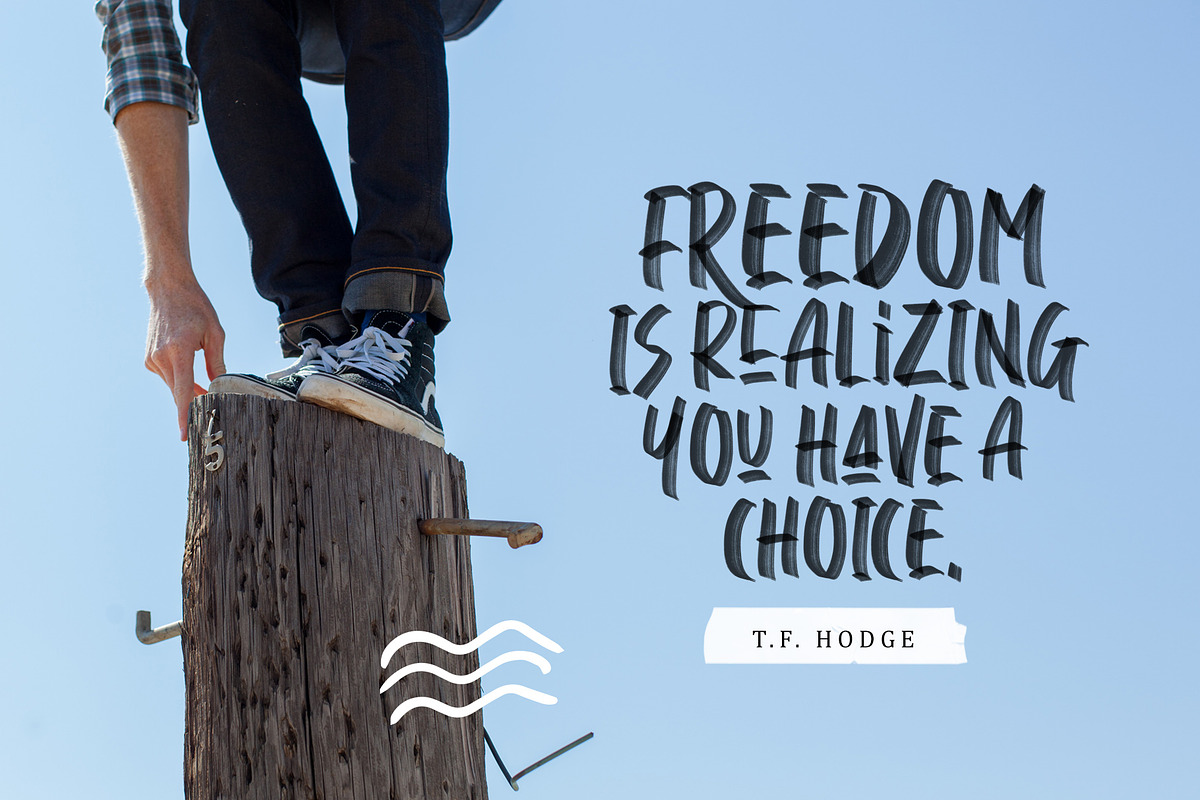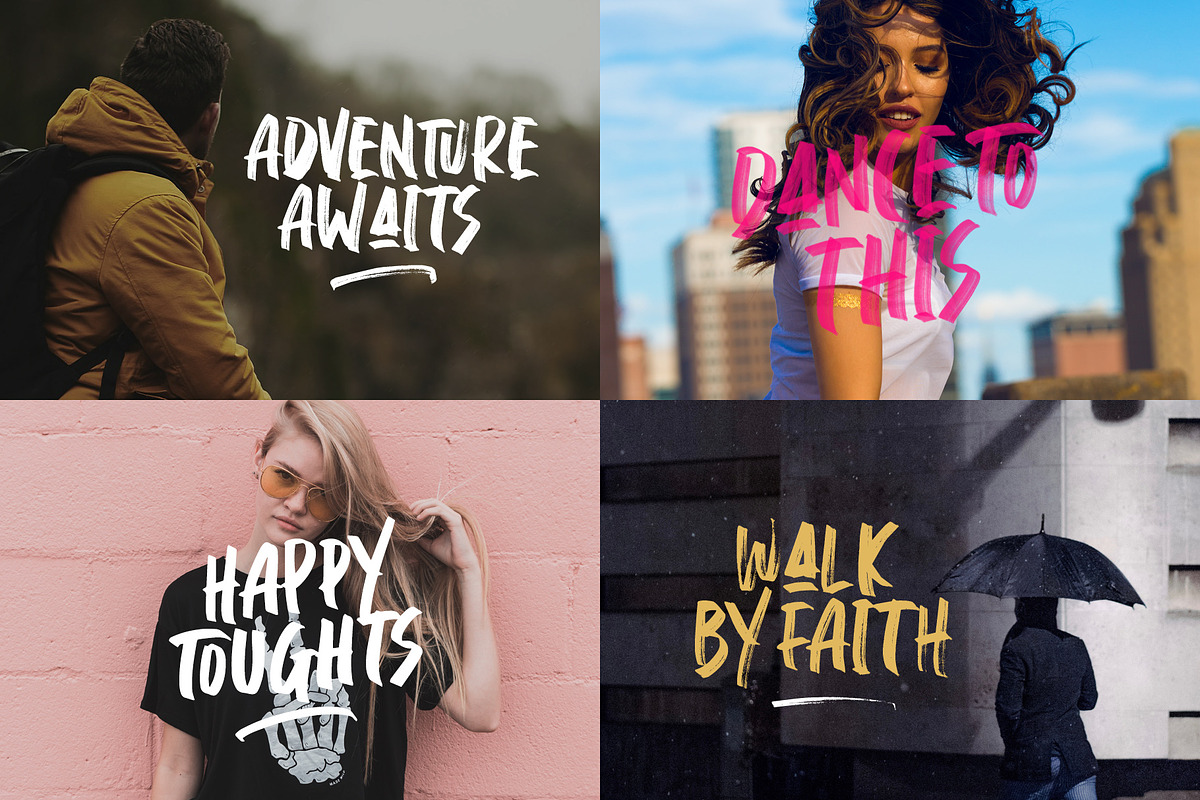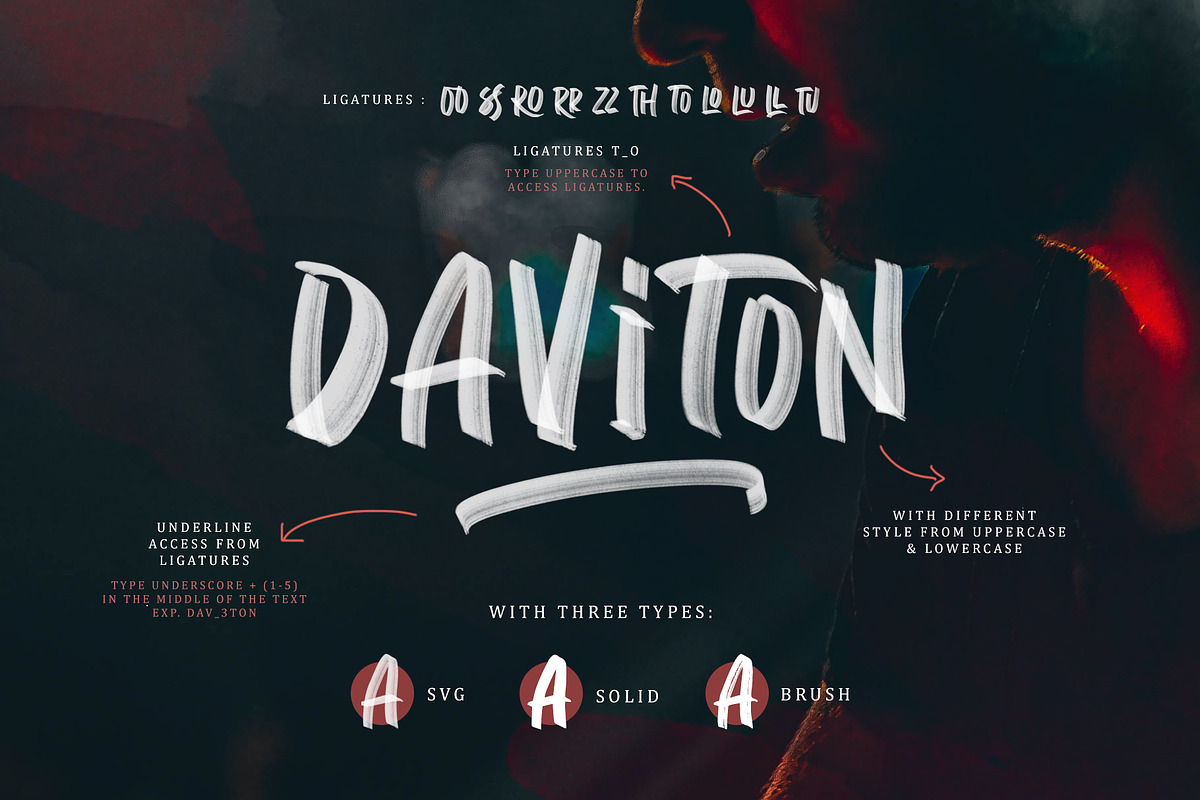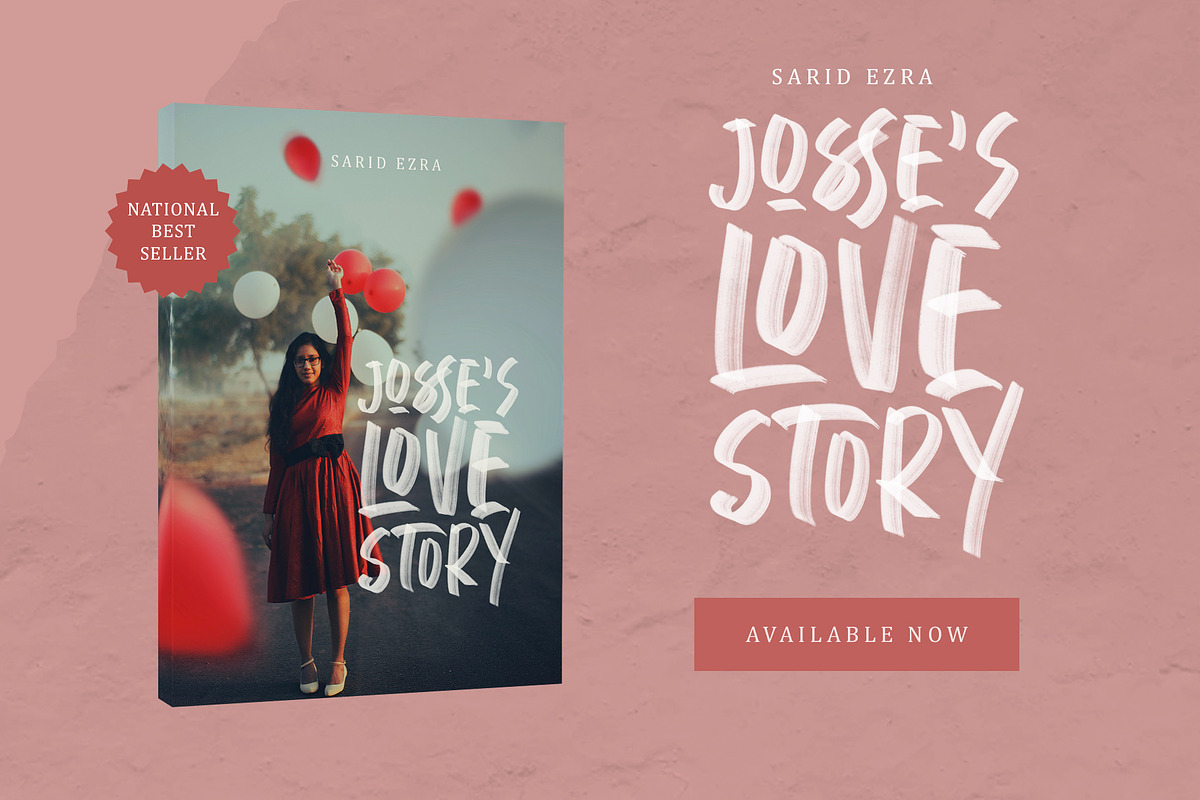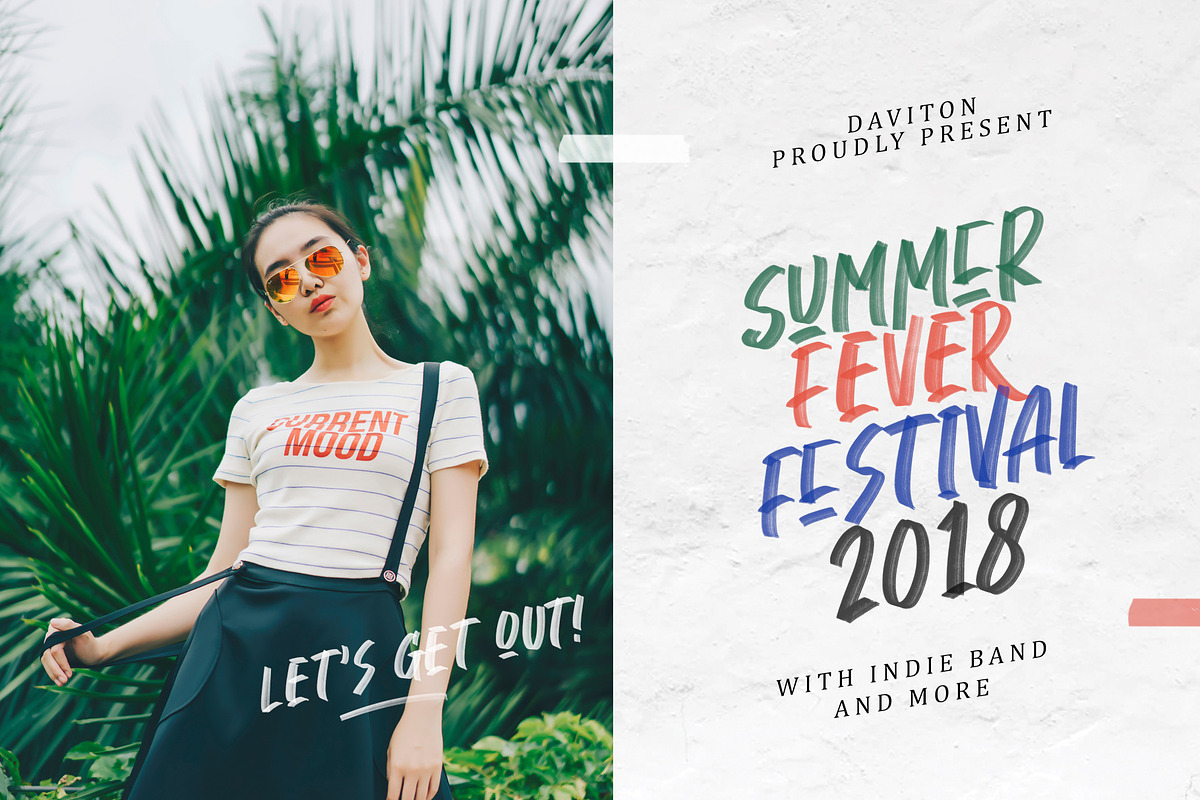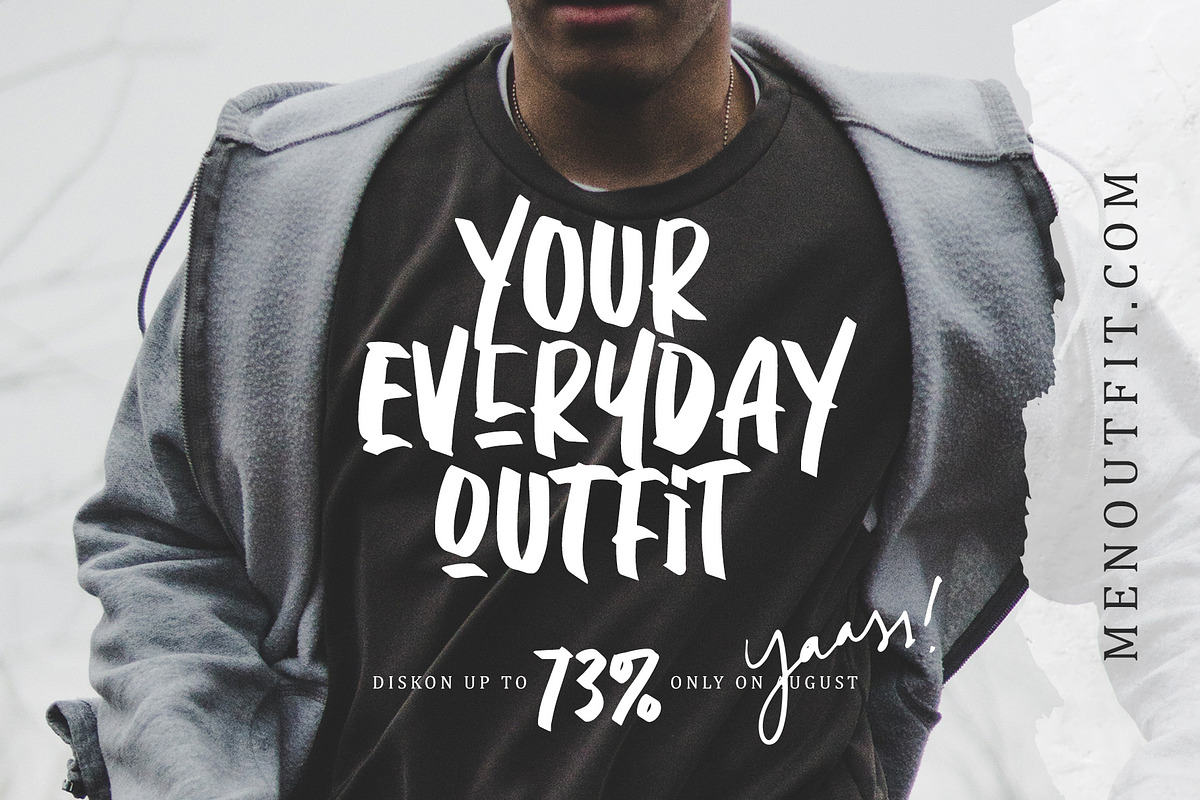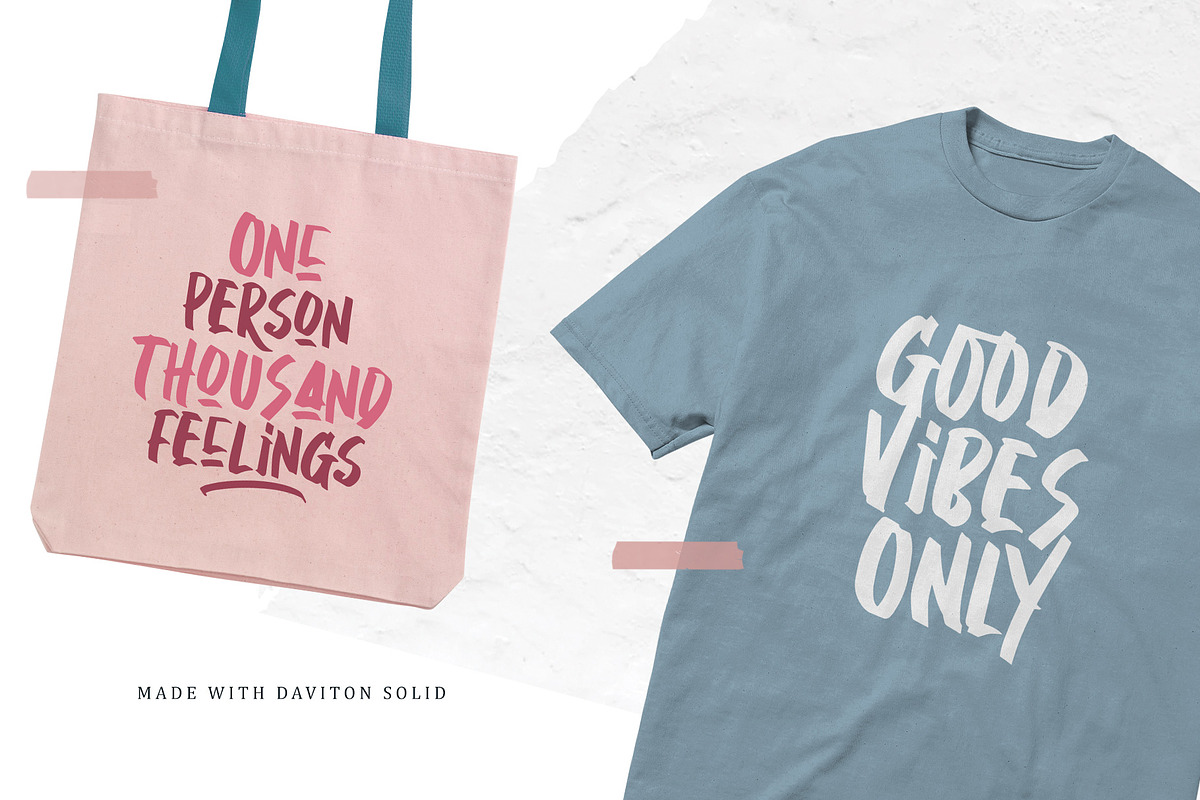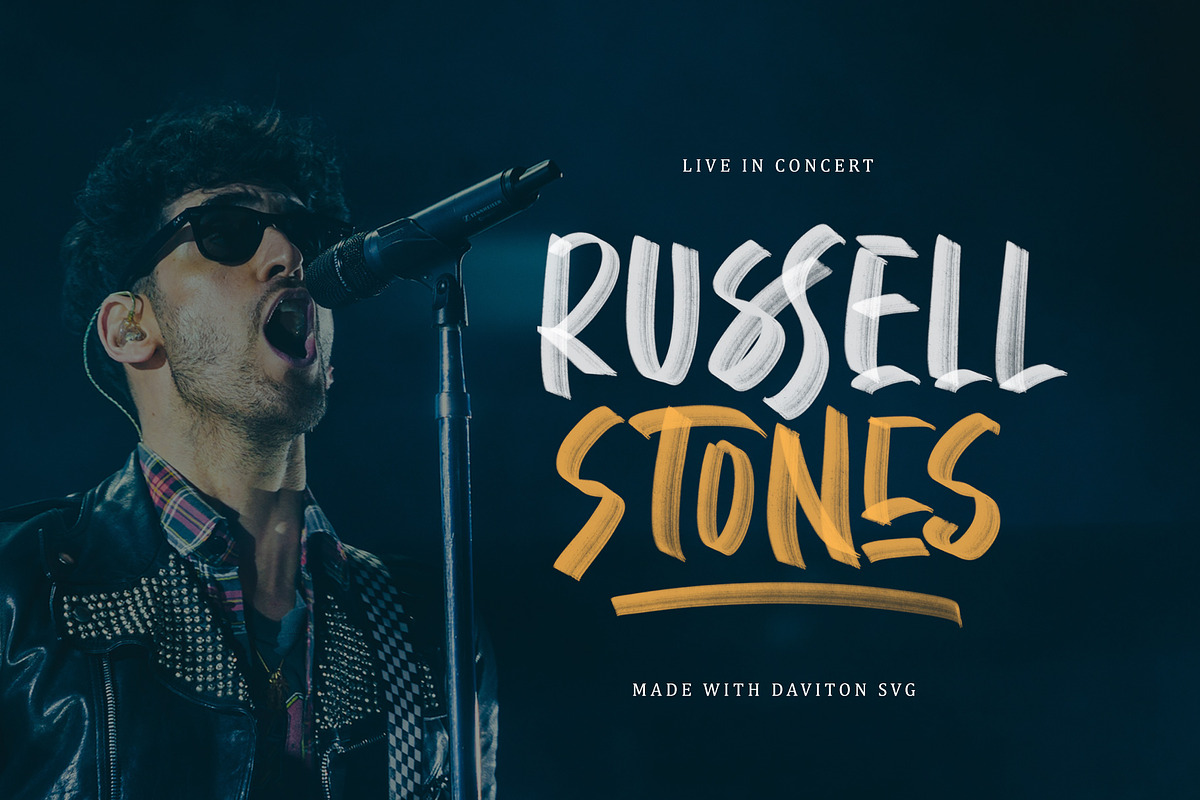
Daviton SVG - Freestyle Font
Introducing, My Newest SVG font, Daviton!
Daviton is handmade font that contains the newest font format, SVG, with two another format. You can use these fonts for various purposes such as making realistic handwriting, for promotions, or other purposes that will make your design more real as handmade. This font also contain ligatures and underline.
This font made with bitmap format with high resolution, but don't worry, you still can change the color of the font by using layer style in photoshop.
Daviton Solid (TTF/OTF) format are widely supported.You can find the alternates from opentype feature. And also Support Multilingual.
Daviton Brush (TTF/OTF) format are widely supported.You can find the alternates from opentype feature. And also Support Multilingual.